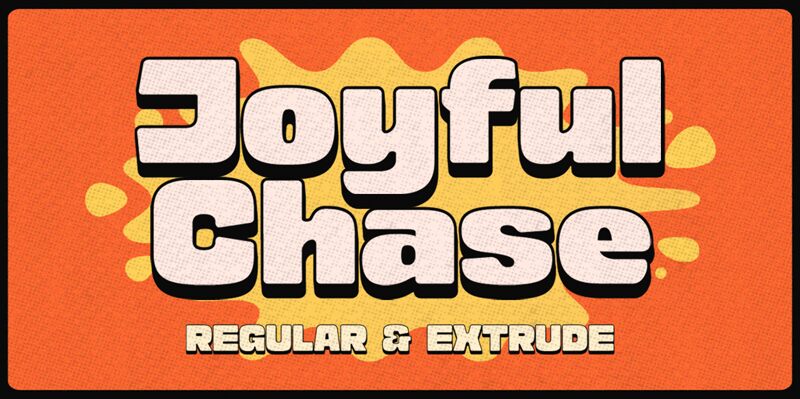
A bold sans-serif typeface created by Letterhend Studio, Joyful Chase is remarkable. With the increased character width and strong weight, this font cannot go unnoticed; it rather makes one feel lively. Thus, This distinctive features of its letters and the overall design create an amazing visual content which can be used in a variety of different projects.
This versatile font can be used for many purposes like creating bold event branding and product packaging that demands attention as well as social media designs that are out to make a statement or editorial page spreads with impact. Its large size along with its wide design makes it suitable pick for catching ones eye and showing positive energy all of which make it suitable for any project that aims at inspiring its viewer’s heart and minds.